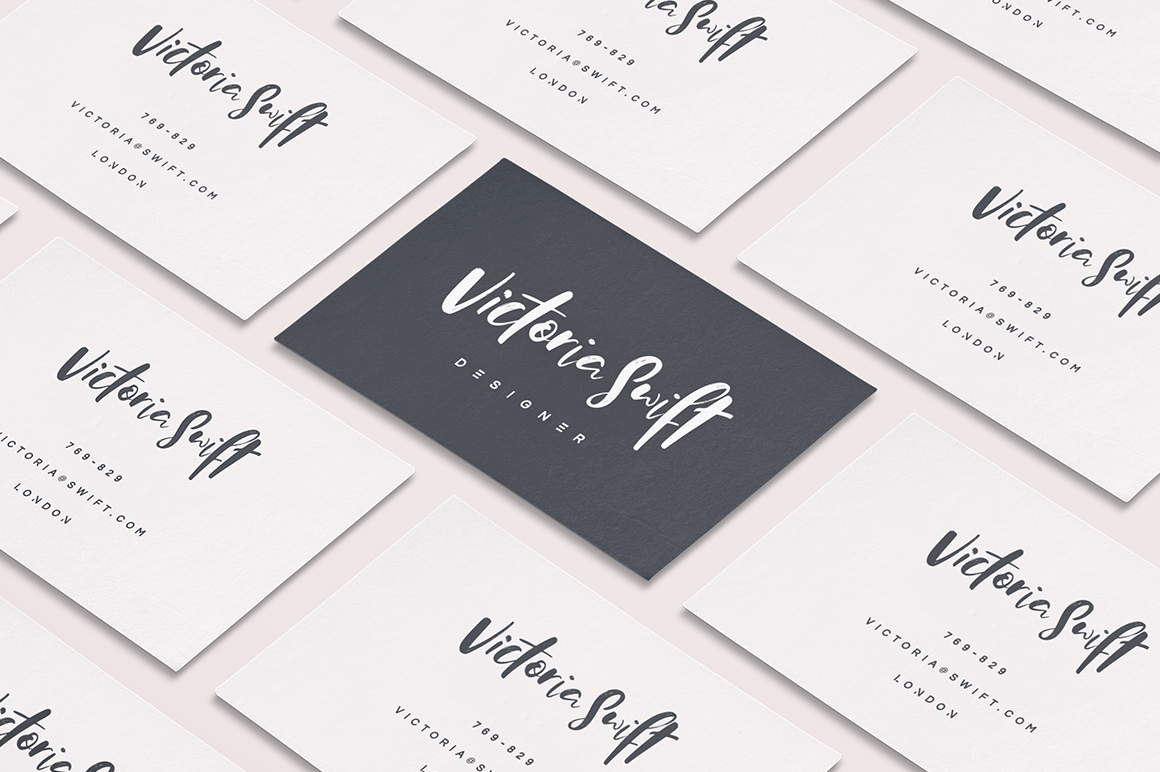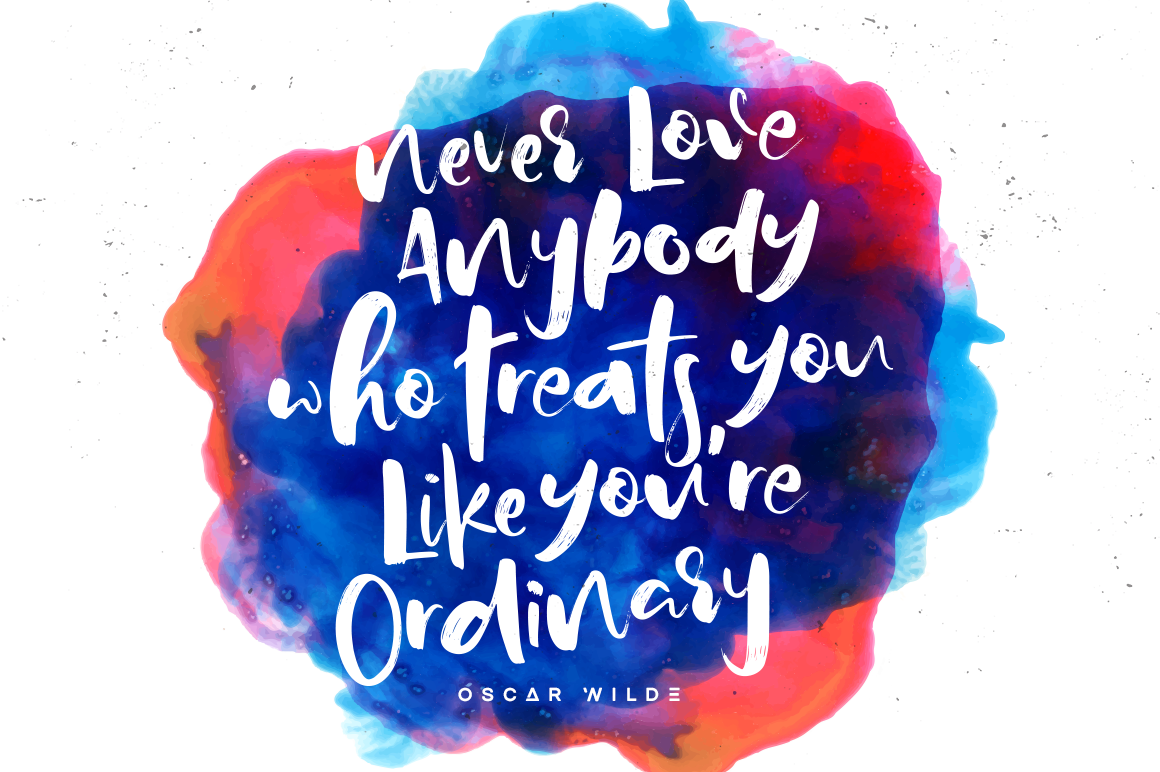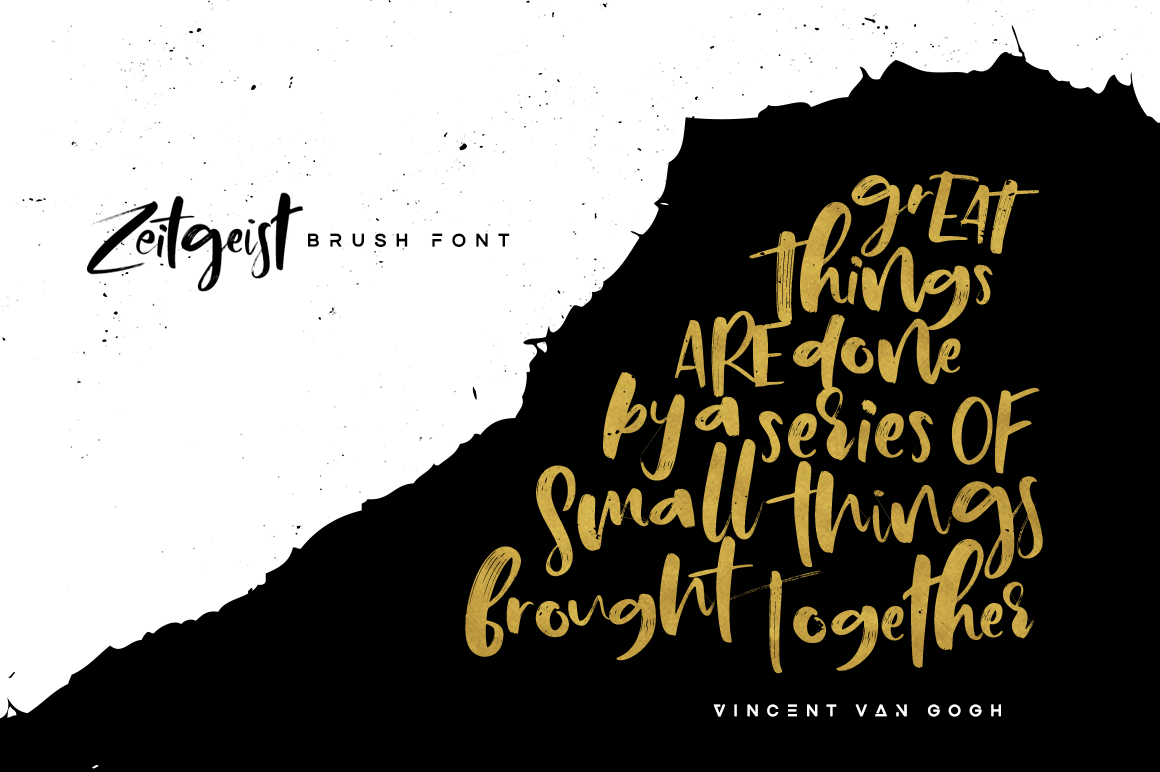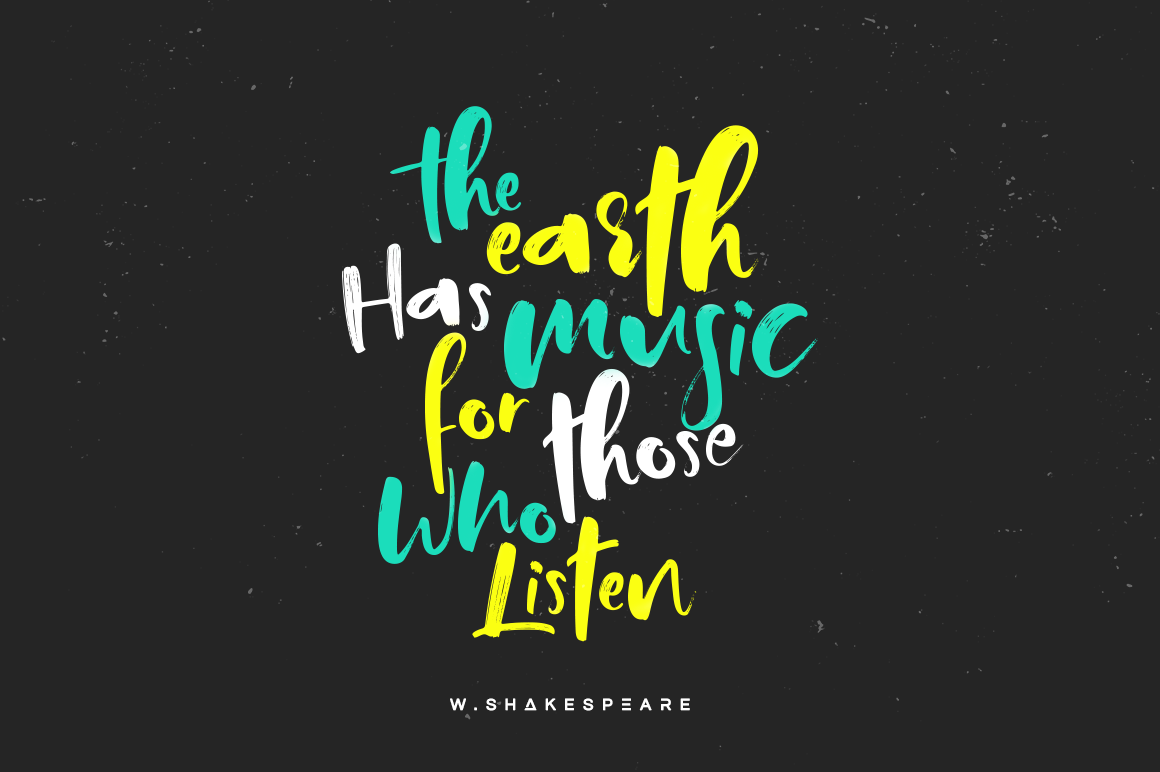
Zeitgeist Free Font
Zeitgeist Free Font based on a real handwriting. Available in 2 versions, regular & alternative. Both scripts are quite versatile and surely meant to grab attention yet bring positivity and excitement. Mix the characters up for the more fascinating results. This free typeface was designed by a talented Hindia Studio. If you like it don’t forget to check out the full version.